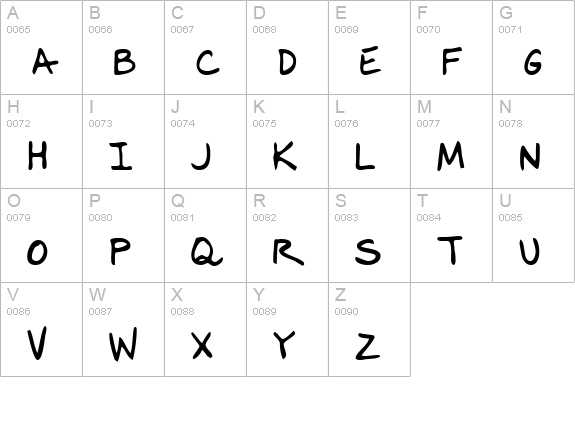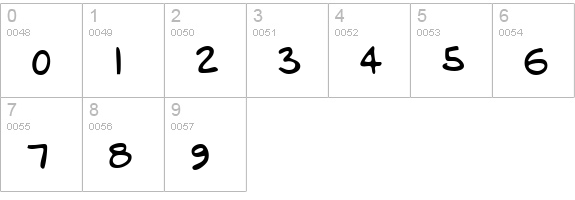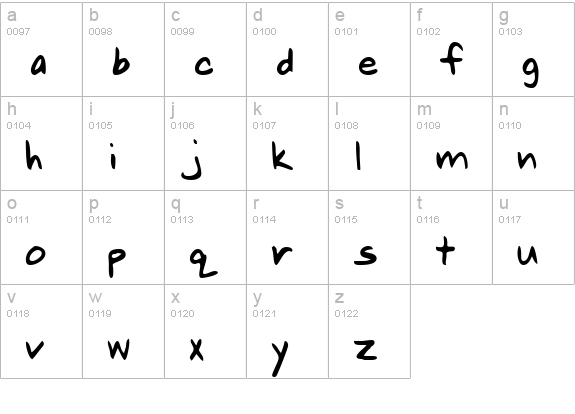
RaysHand Regular Font Details
RaysHand Regular is the standard, neutral variant in the RaysHand typeface family \xE2\x80\x94 well suited to general body text, paragraphs, and standard typographic work.
RaysHand Regular font is a charming and versatile typeface designed for those who want to add a touch of whimsy and playfulness to their designs. With its carefully crafted letterforms and unique hand-drawn style, this font is perfect for a wide range of creative projects, from branding and advertising to packaging and invitations. Featuring a mix of rounded edges and flowing curves, RaysHand Regular font exudes a sense of warmth and friendliness. Its slightly uneven baseline and varying stroke widths give it a handcrafted feel, adding a personal touch to any design. Whether you're looking to create a cheerful logo, a catchy headline, or eye-catching social media graphics, this font is sure to grab attention and leave a lasting impression. One of the best things about RaysHand Regular font is that it is free to download at FontsMarket.com. This means that you can use it in both personal and commercial projects without any restrictions. Whether you're a professional designer or a hobbyist, this font provides you with the opportunity to bring your creative visions to life without breaking the bank. So why wait? Go ahead and download RaysHand Regular font today from FontsMarket.com and start adding a playful and unique touch to your designs. With its versatility and charm, this font is sure to become a valuable addition to your typography toolkit.